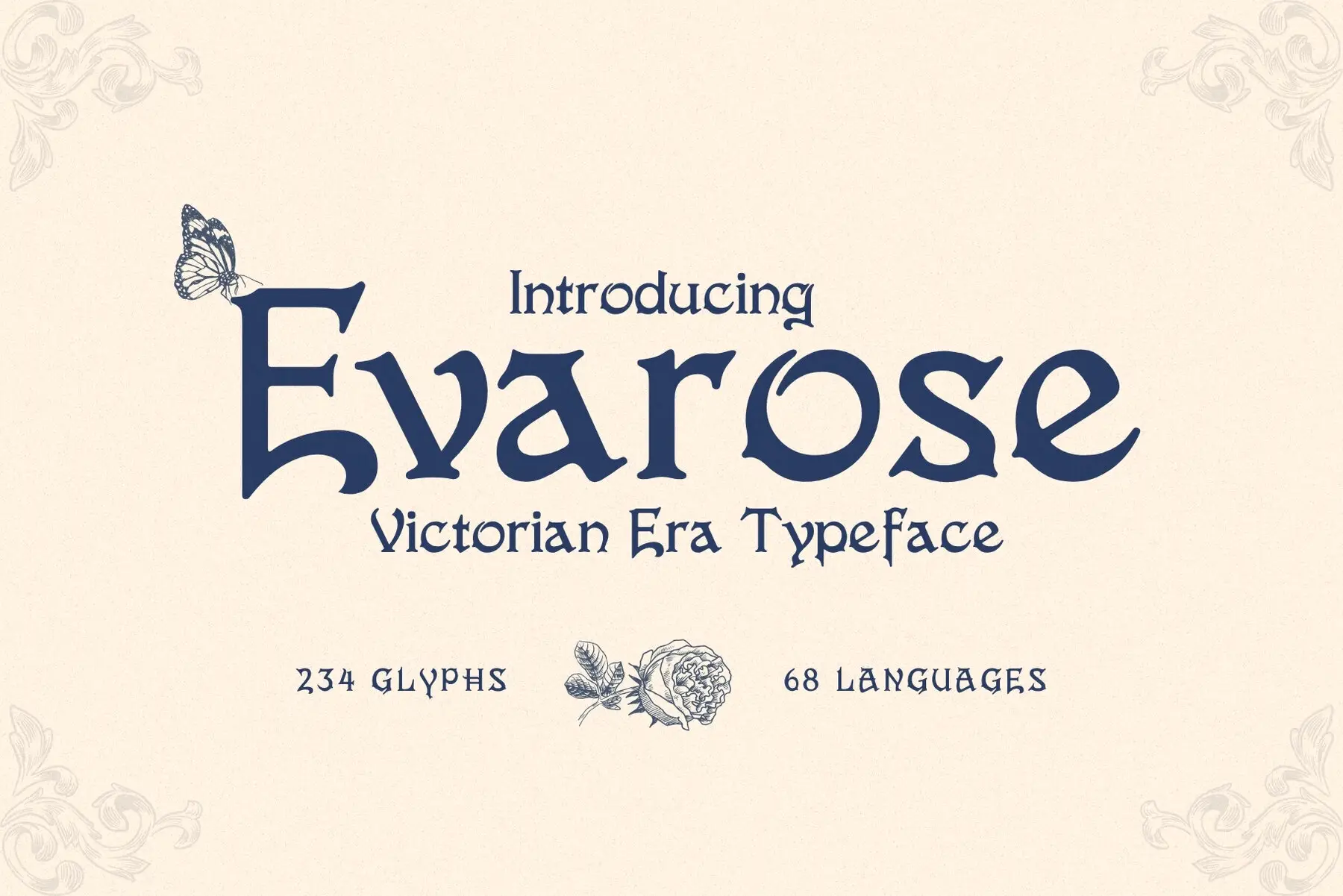
Evarose Font
Step into the timeless elegance of the past with Evarose, a refined typeface inspired by the Victorian era's intricate charm and ornate craftsmanship. Each curve and serif pays homage to 19th-century typography, a blend of antique poster styles, romantic letters, and regal signage. Evarose isn't just a typeface; it's a historical journey. Featuring 234 meticulously crafted glyphs and supporting 68 languages, Evarose combines beauty and functionality. This typeface transforms wedding invitations into luxurious works of art, enhances logos with vintage allure, and elevates packaging with an antique-inspired aesthetic. It's perfect for creating social media posts that capture attention with a touch of old-world sophistication. The result of dedicated research, precision, and passion, Evarose isn't merely vintage-themed—it's rooted in historical authenticity. Elevate your designs with the spirit of the past, refined by a modern designer's eye.Evarose Typeface: Embrace Victorian Elegance